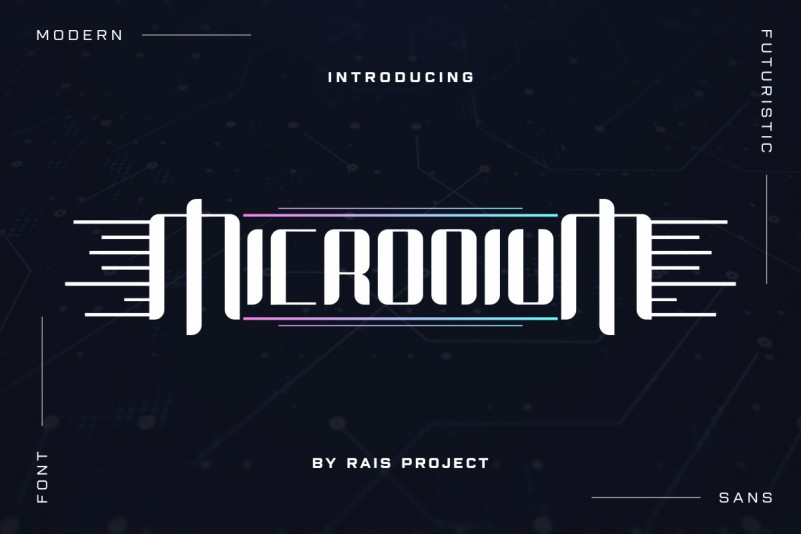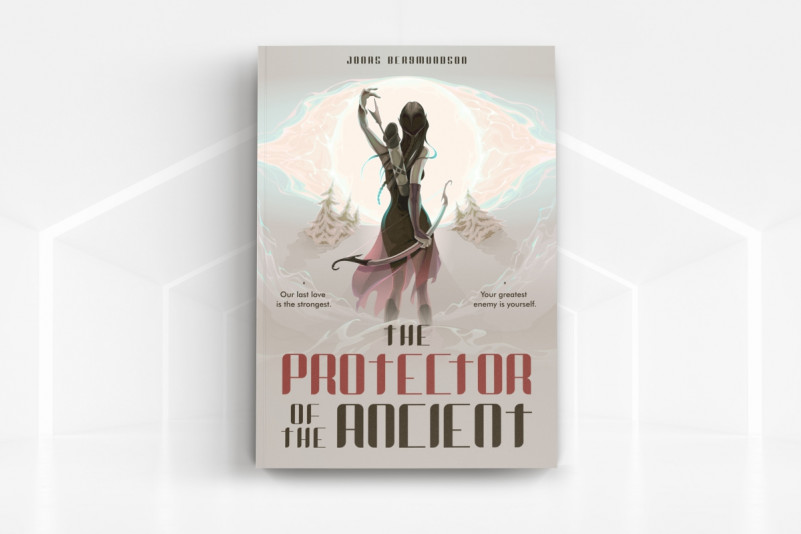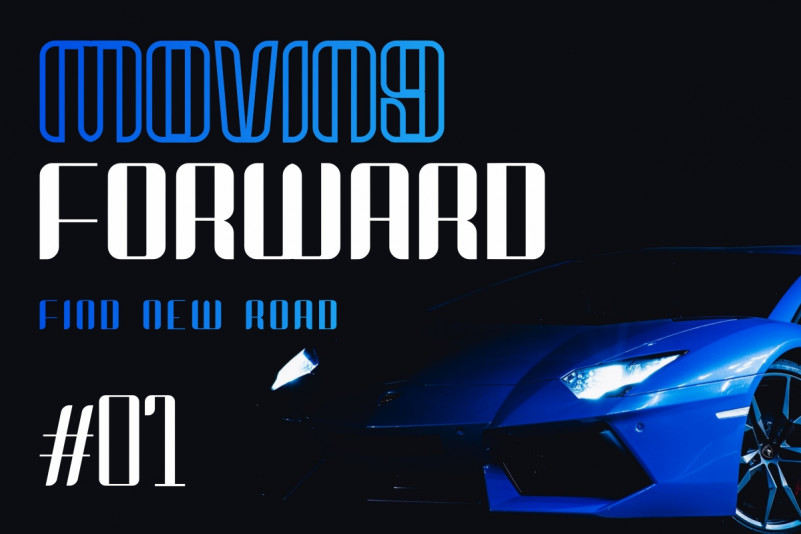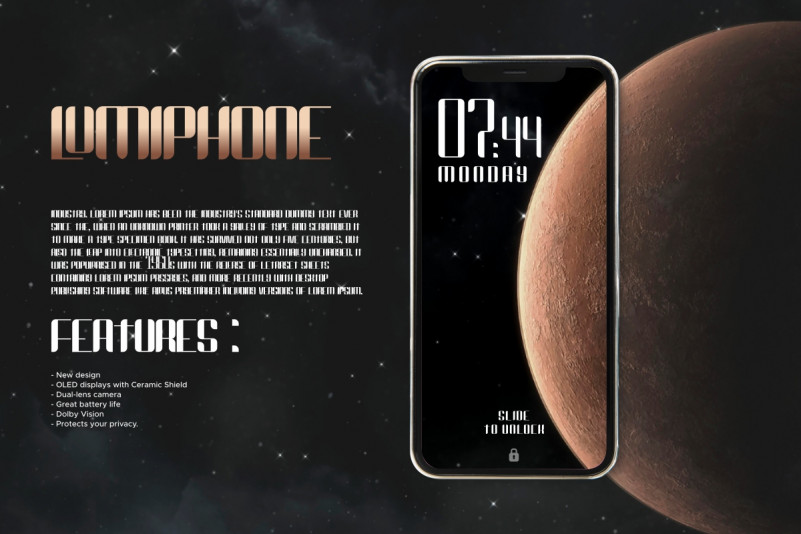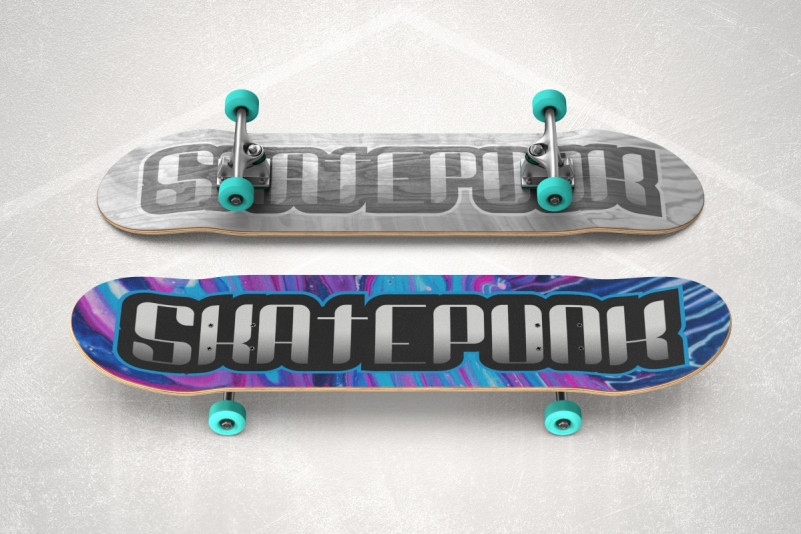
Micronium Font
Micronium Display Font
This is a stunning display font, designed by RaisProject. It has unique style, mysterious and horror old style. The font was handcrafted for any your special projects including : headlines, promotion, events, branding, advertising, magazine, signage, invitation, stationery, social media posts, label, or and any projects that need unique strong style. The industries for this font is Games, Magazine, Music, Fashion etc. Micronium Font includes full set of gorgeous letters ,numerals etc